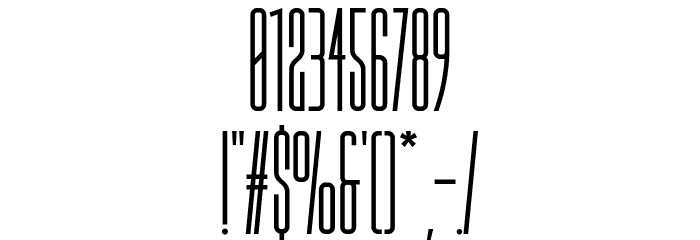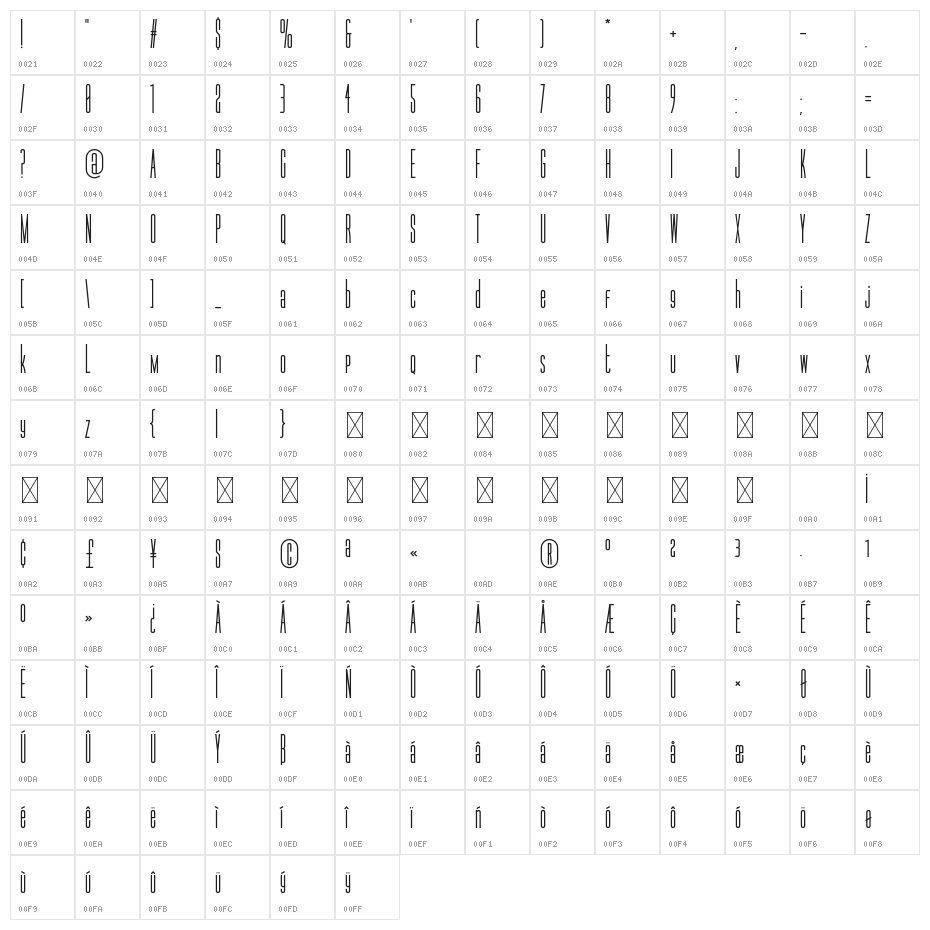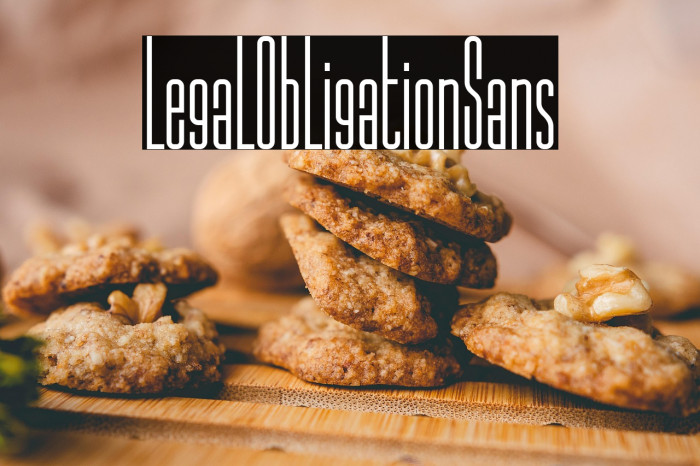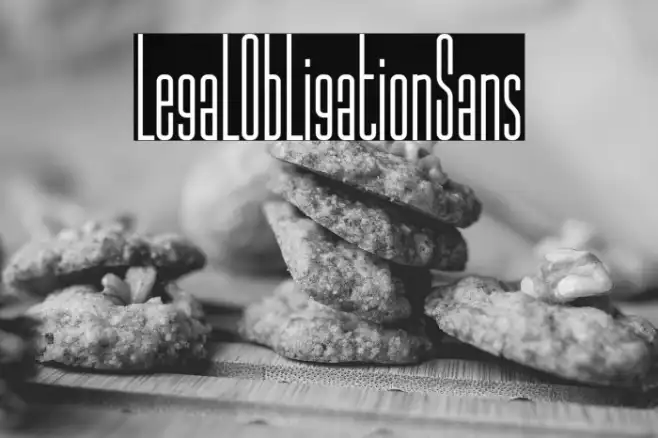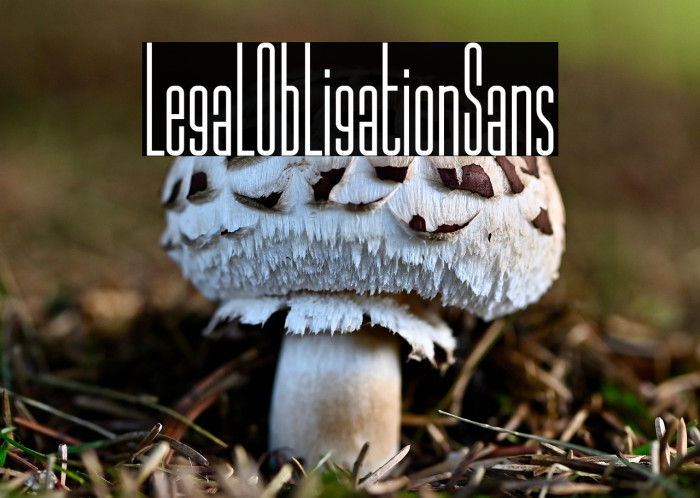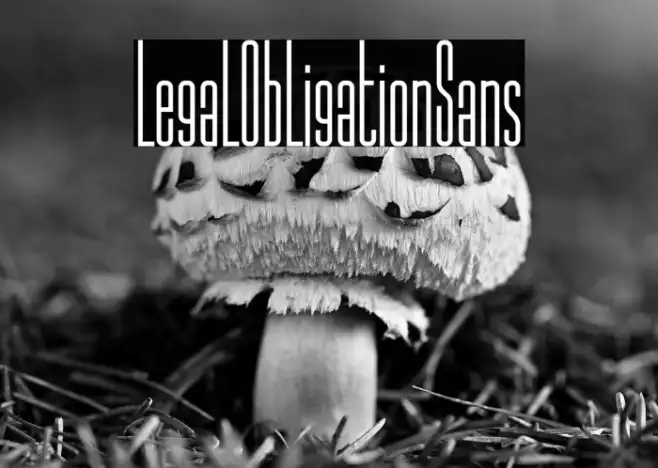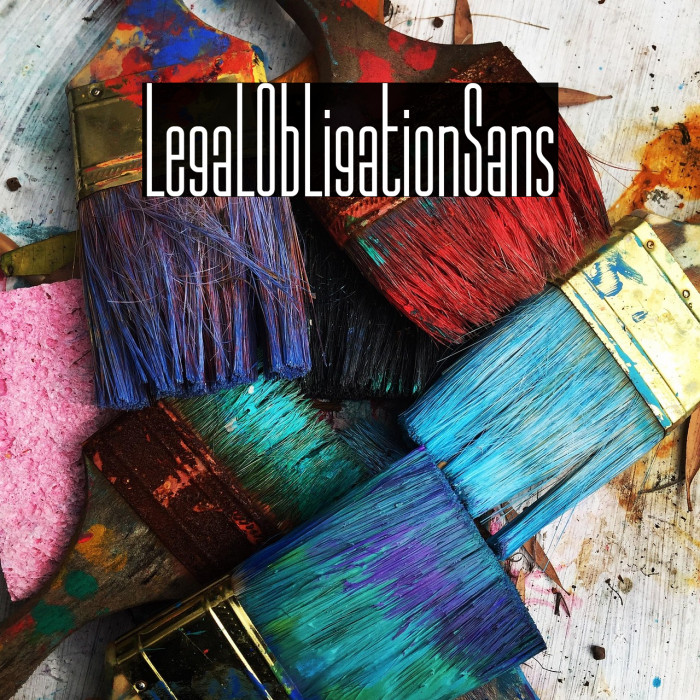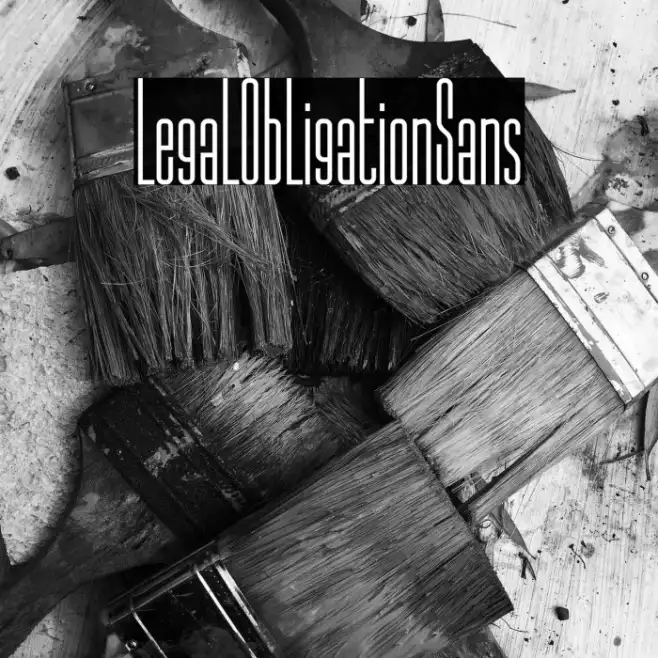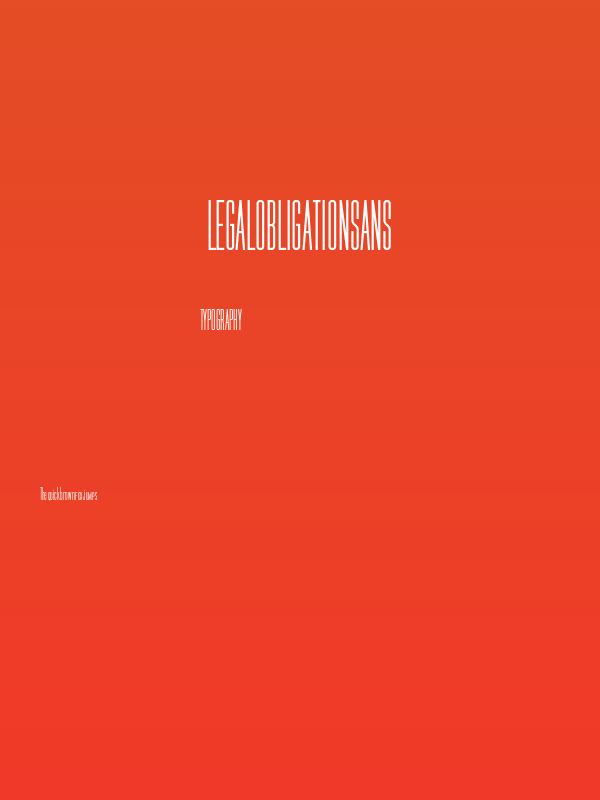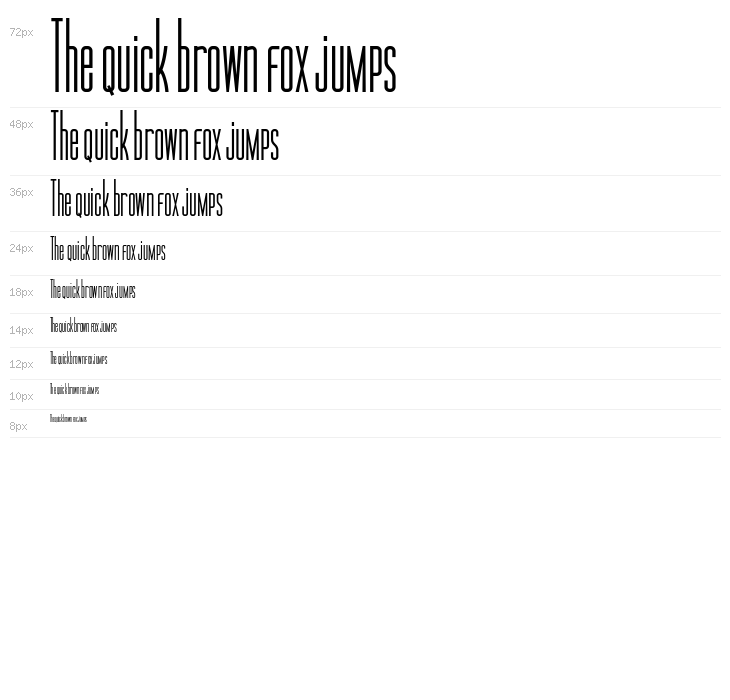
LegalObligationSans Font
LegalObligationSans Description
This font features a tall, narrow design with a distinctly modern and sleek appearance. The characters are elongated, giving a sense of height and elegance. The uppercase letters maintain a consistent height, while the lowercase letters are slightly shorter, preserving readability. The numbers follow the same narrow style, ensuring uniformity across all characters. Special characters are designed to match the overall aesthetic, with clean lines and minimal embellishments. The font's thin strokes and lack of serifs contribute to its contemporary look, making it suitable for projects that require a sophisticated and stylish touch.
| Proposed Projects | Ideal for fashion magazines, luxury branding, modern posters, and minimalist web design. |